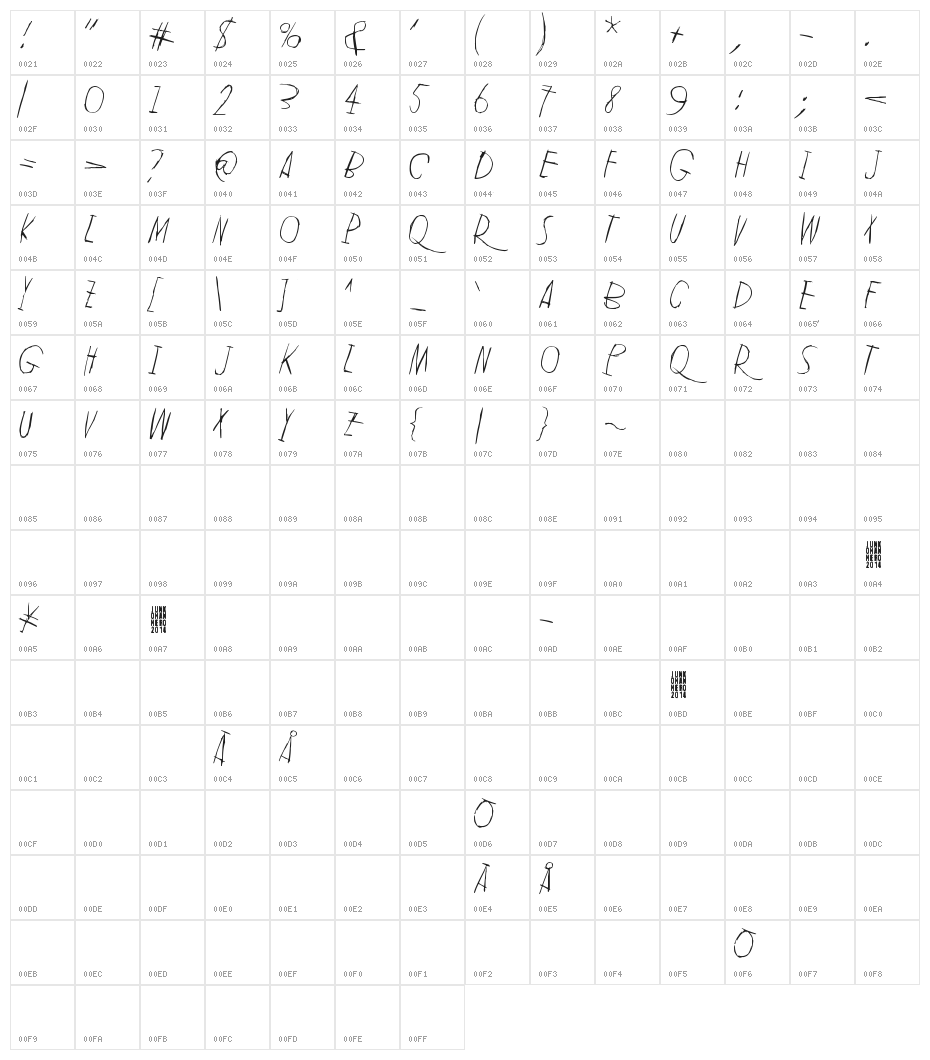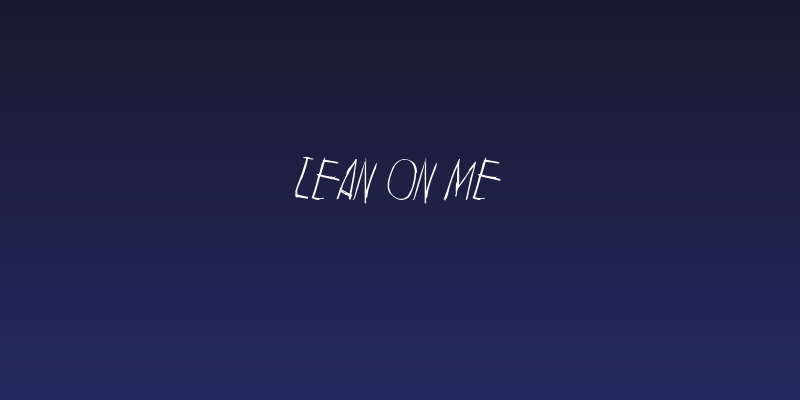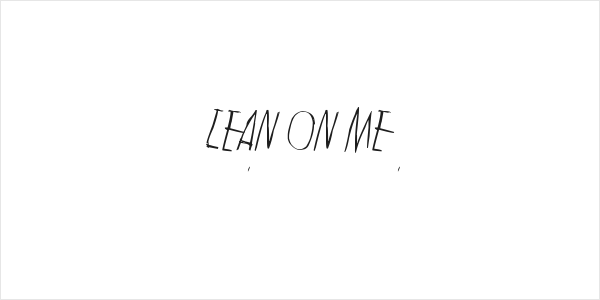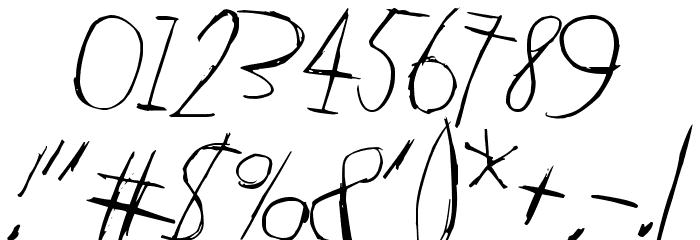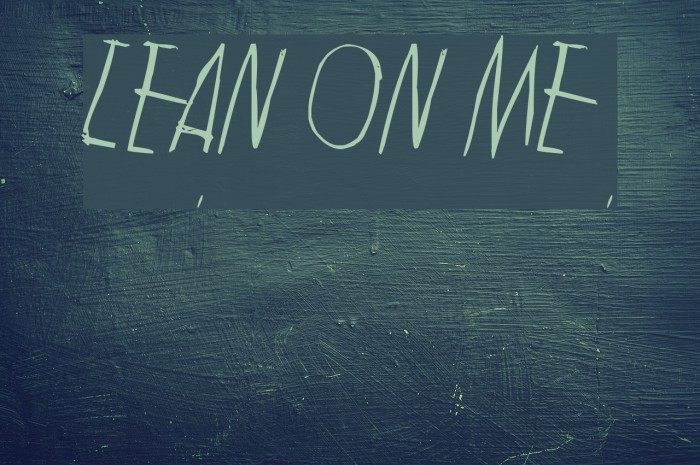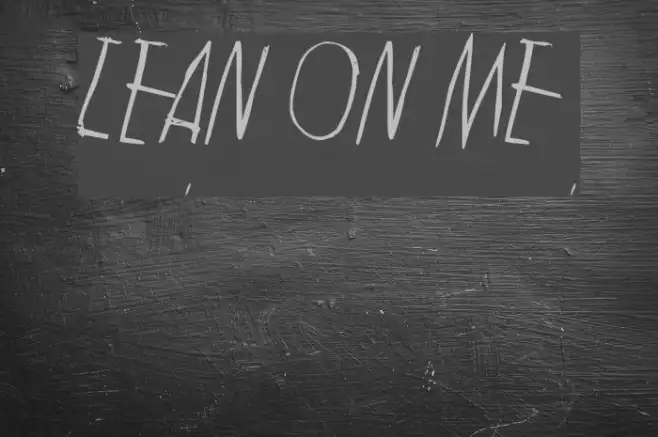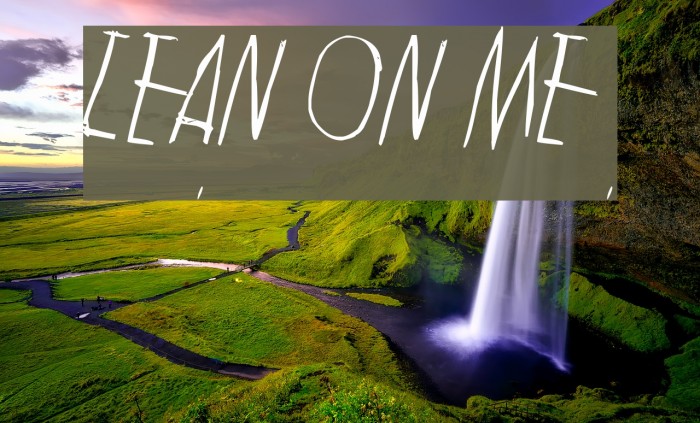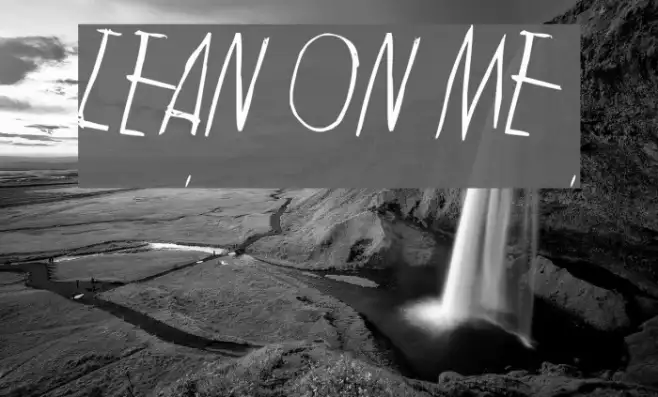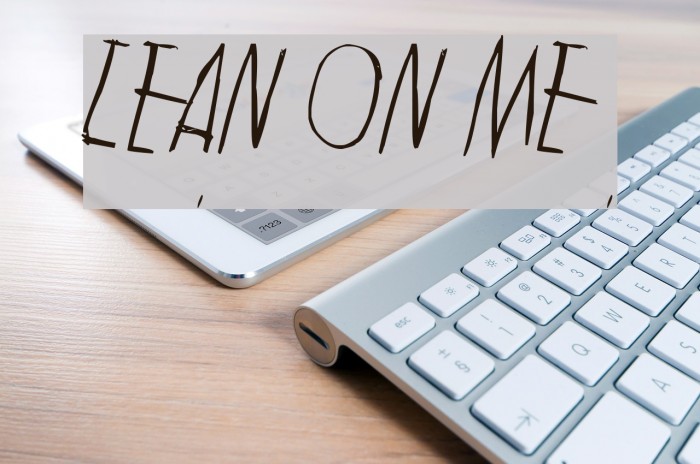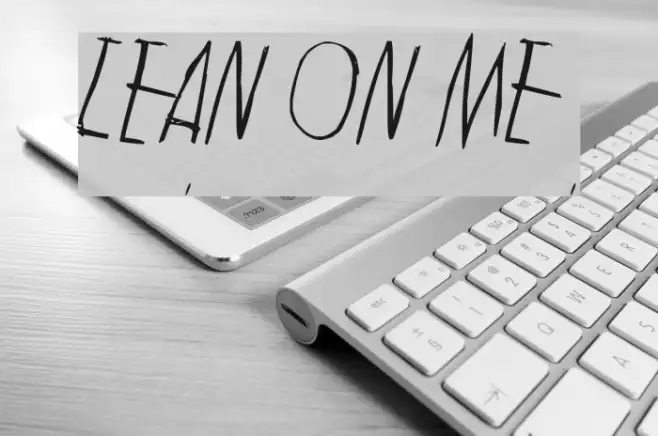
Lean on me Font
Lean on me Description
This font features a dynamic and energetic handwritten style, characterized by its irregular strokes and playful appearance. The letters are slightly slanted, giving a sense of movement and spontaneity. The uppercase and lowercase letters maintain a consistent style, with elongated verticals and varying stroke widths that add to its informal charm. The numbers and special characters follow the same lively design, making it suitable for creative and artistic projects. The overall look is casual yet expressive, perfect for conveying a personal touch.
| Overall Style | Casual, Artistic |
| Use Case | Logos, Headlines, Creative Projects |
| Proposed Projects | Ideal for greeting cards, invitations, personal branding, and artistic posters. |